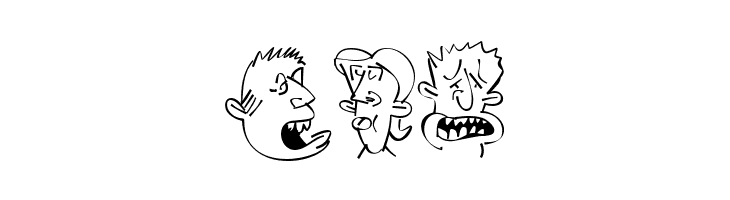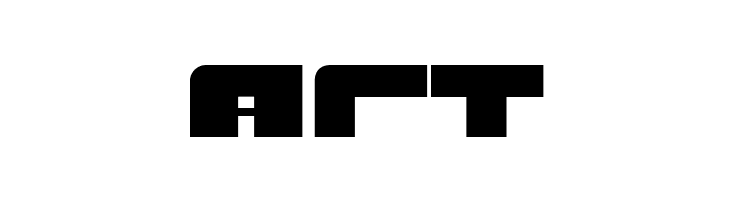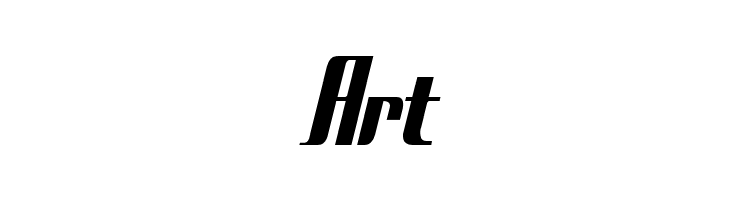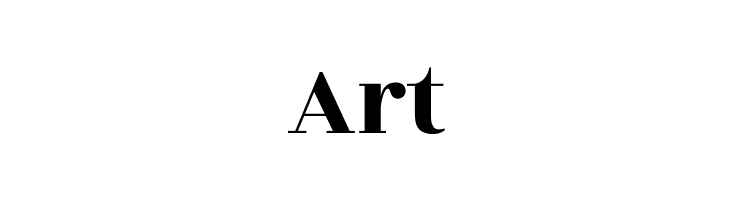
A bold, elegant serif font with high contrast and classic-modern appeal.
A bold, high-contrast serif font with elegant, sharp serifs and a modern touch.
A bold, angular font with a modern, slightly italicized style.
A bold, modern font with a slanted, dynamic style and unique cut-through lines.
A dynamic, futuristic font with sharp, angular lines and a slanted orientation.
A bold, textured slab serif font with a vintage, distressed style.
A playful font with cartoonish faces and characters, full of humor and creativity.
A modern, geometric font with clean lines and a uniform structure.
A modern, geometric font with clean lines and uniform stroke width.